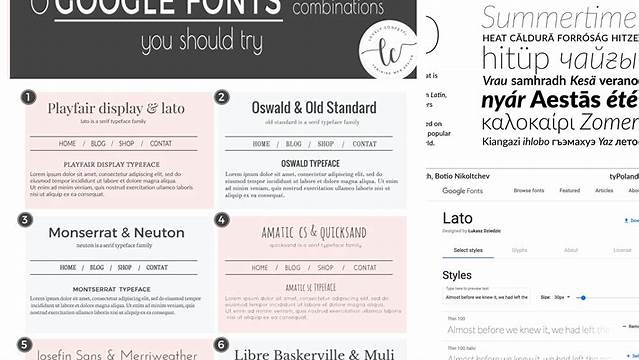
Hey guys! So, you're looking to spruce up your website with the gorgeous Lato font, huh? Smart move! Lato is one of those super versatile fonts that just works everywhere, from sleek modern designs to more classic layouts. It's clean, readable, and has this friendly yet professional vibe. But how do you actually get it onto your site? It's all about that link rel stylesheet
tag, pointing to the right place on Google Fonts. Let's dive into how you can easily integrate this beautiful font family into your web projects. We'll break down the whole process, making sure you know exactly what you're doing, step-by-step. So buckle up, and let's get your website looking fantastic with Lato!
is the actual web address (URL) of the resource – in this case, the CSS file hosted by Google Fonts that contains all the Lato font variations. The beauty of using Google Fonts is that it’s highly optimized for web use, meaning fast loading times and consistent rendering across different browsers and devices. You don't have to worry about uploading font files yourself or dealing with complex licensing issues. Plus, Lato itself is a fantastic choice. Designed by Łukasz Dziedzic, it started with a 'semi-rounded' feel, giving it a sense of warmth. Over time, it evolved into a more robust family with different weights and styles, making it suitable for everything from body text to prominent headings. So, when you're linking to Lato via Google Fonts, you're tapping into a well-maintained, high-quality font service that’s designed to make your life easier and your website look better. It's a win-win situation, really. We're essentially asking the browser to go out, grab the Lato font files from Google's servers, and apply them to our text.
Customizing Lato Font Weights and Styles
method for Lato is the sheer flexibility you have. You're not stuck with just one boring version of the font! Lato comes in a whole spectrum of weights, from super light (like 100 or 300) all the way up to extra bold (900), plus regular (400) and bold (700) in between. And don't forget the italics! You can grab regular italics, bold italics, light italics – you name it. The process of selecting these is done right on the Google Fonts website. When you search for Lato and click on it, you'll see a panel pop up on the right side, showing you all the available styles. You can click the 'Select this style' button next to each one you want to include. As you add them, the code snippet in the 'Selected families' or 'Get font' section updates automatically. This means the href
URL in your <link>
tag gets longer, including parameters that specify exactly which weights and styles (like ital,wght@0,400;1,700
for regular and bold italic) you've requested. Why is this important, you ask? Well, using only the weights and styles you actually need makes your website load faster. If you link to every single variation of Lato but only use the regular weight, your browser still has to download all those extra font files. It’s like ordering a giant buffet when you only want a sandwich! So, be strategic. Pick only what you need for your design. Need bold headings? Grab the 700 weight. Need slightly heavier body text? Maybe 500. Want a classic look? Stick to 400 and 700. This level of control ensures your website is both visually appealing and performant. You're not just linking a font; you're curating a specific typographic experience tailored to your project's needs.
Applying Lato Font in Your CSS
Okay, so you've successfully linked the Lato font using that nifty <link rel stylesheet href...>
tag in your HTML's <head>
. Awesome! But the font isn't magically going to appear on your text just yet. The next crucial step is telling your website which text should use Lato. This is where your CSS (Cascading Style Sheets) comes into play. You'll define rules in your CSS file (or within <style>
tags in your HTML) to apply the font family. The property you'll use is font-family
tag with rel="preload"
and specify the as="font"
attribute. It looks something like this: <link rel="preload" href="https://fonts.googleapis.com/css2?family=Lato:wght@400;700&display=swap" as="font" type="font/woff2" crossorigin>